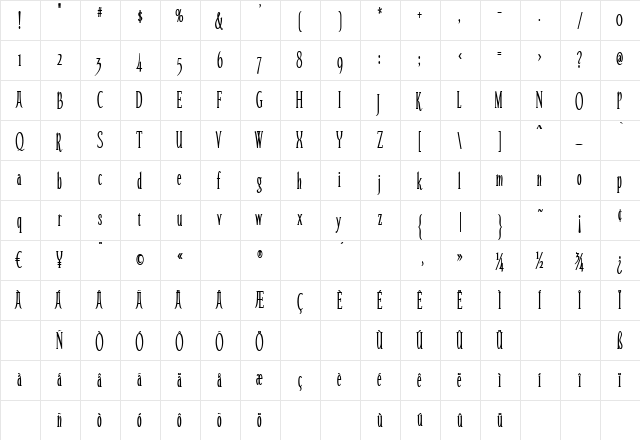
Echelon Condensed Regular
Design Context for Echelon Condensed Typeface
Echelon Condensed offers clean, dependable letterforms without strong stylistic allegiance, making it a practical choice for designers who need flexibility. Its narrow stance lets it pack a punch even in space-constrained designs.
Pro Tip: Use Echelon Condensed in both headline and body roles to test its range before committing to a single application.